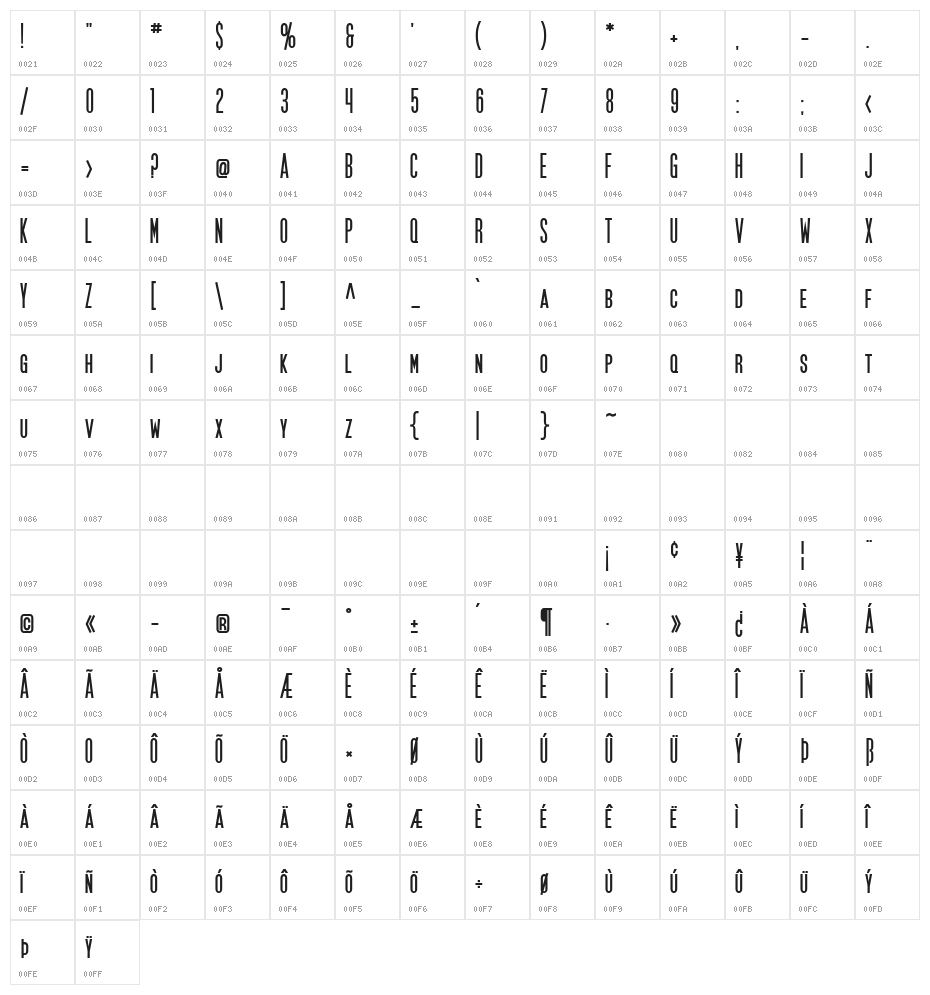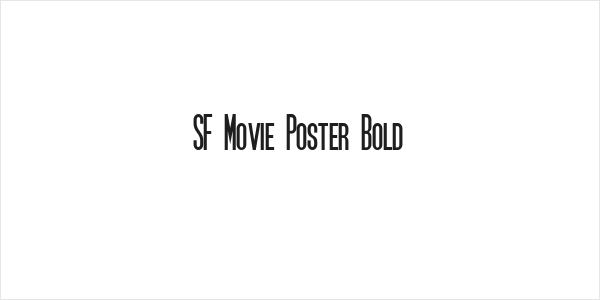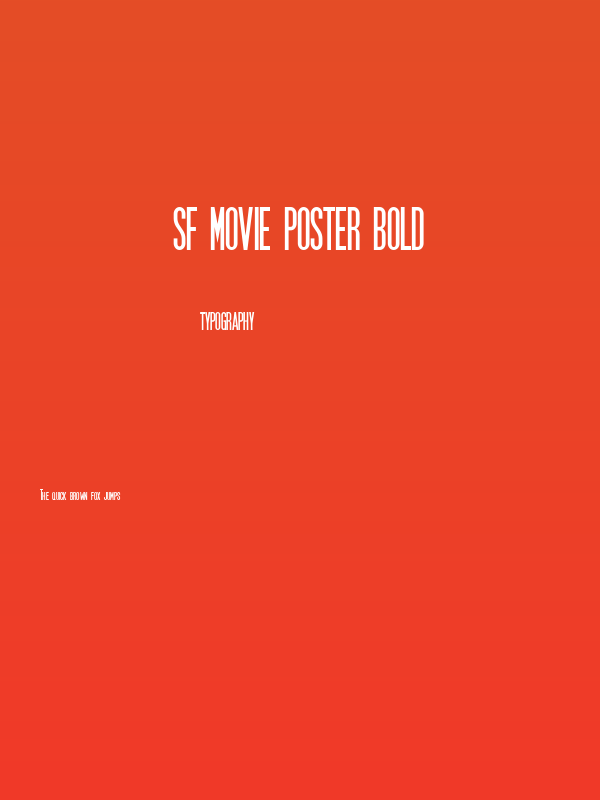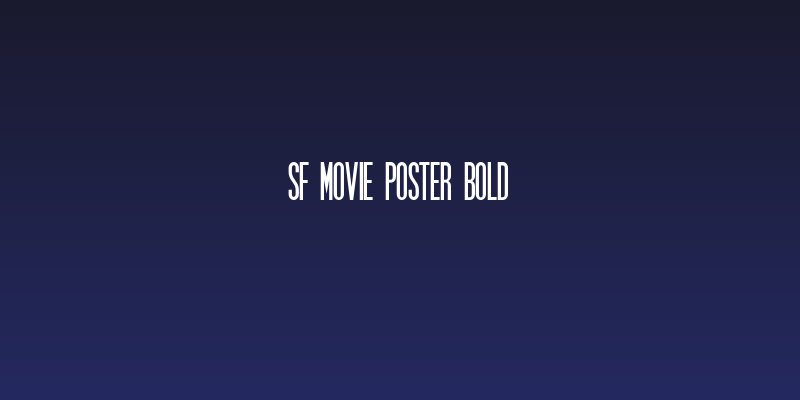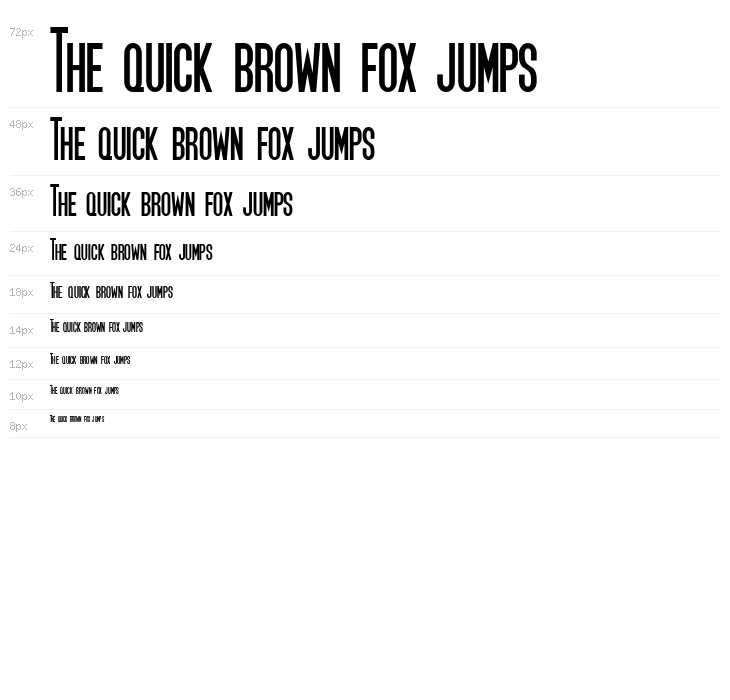
SF Movie Poster Bold Font
SF Movie Poster Bold Description
This font features a bold and striking design, characterized by its tall and narrow letterforms. The uppercase letters are particularly elongated, giving it a dramatic and impactful appearance. The font maintains a consistent stroke width throughout, contributing to its clean and modern aesthetic. The characters are tightly spaced, enhancing its compact and cohesive look. Its design is reminiscent of classic movie posters, making it ideal for capturing attention and conveying a sense of urgency or excitement. The font includes a full set of uppercase and lowercase letters, numerals, and a variety of special characters, ensuring versatility in its application.
Proposed ProjectsPerfect for movie posters, event flyers, book covers, and any project requiring a bold statement.